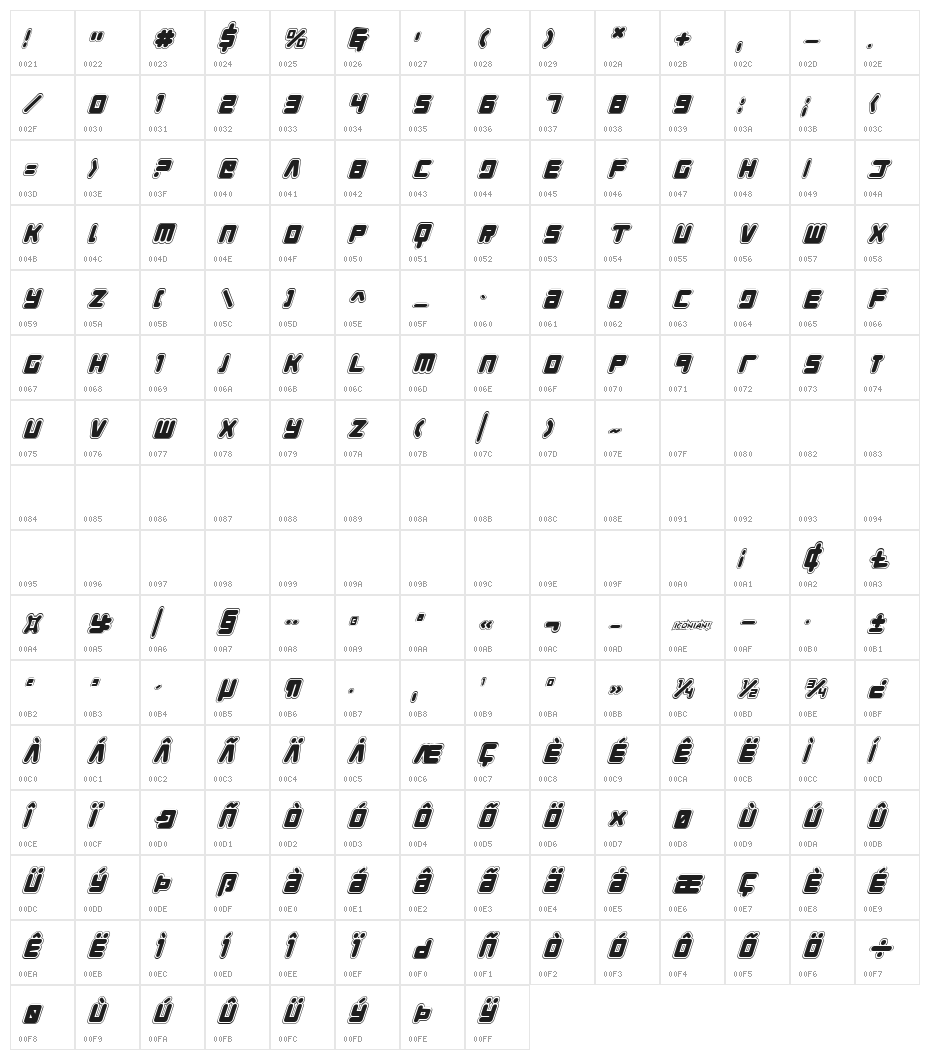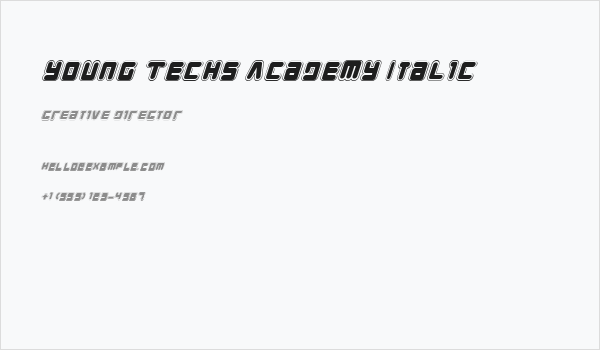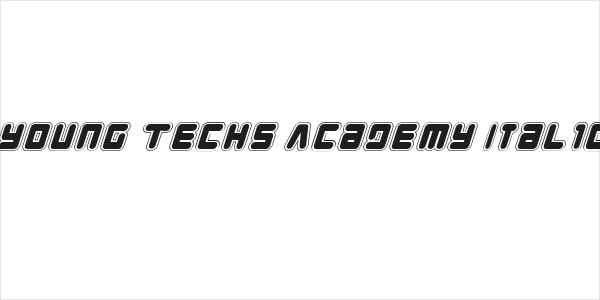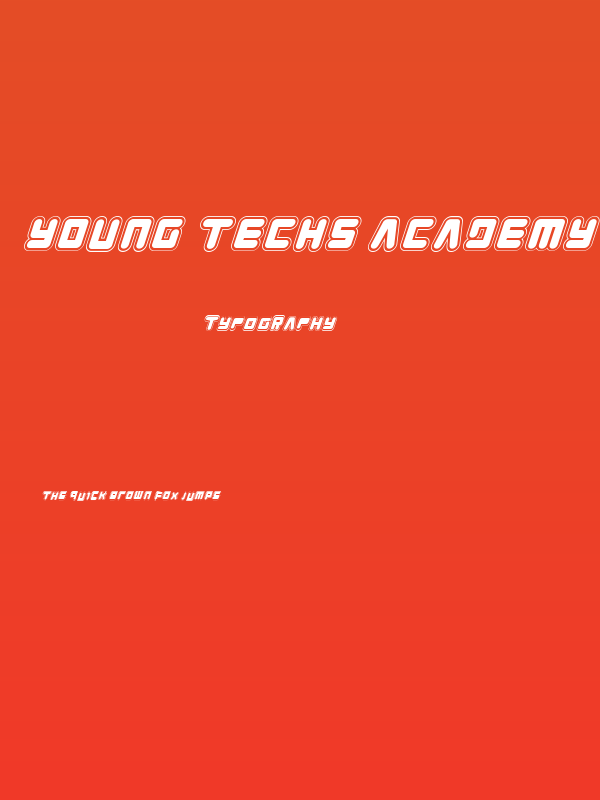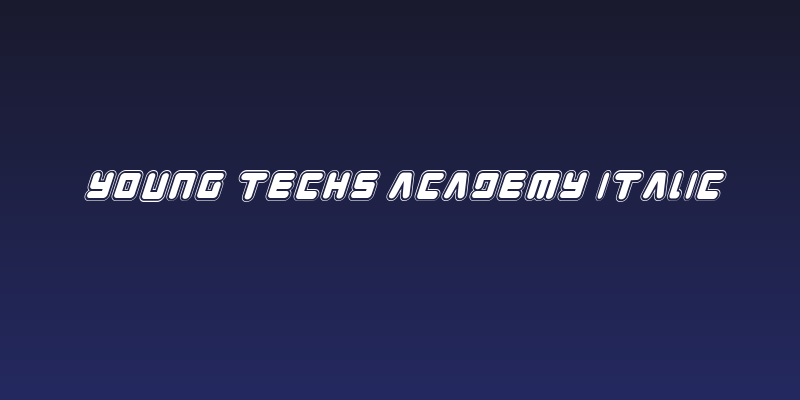
Young Techs Academy Italic Font
Young Techs Academy Italic Description
This font features a bold, modern design with a distinct italic slant, giving it a dynamic and futuristic appearance. The characters are outlined with a thick border, enhancing their visibility and impact. The font maintains a consistent width across all characters, creating a uniform and cohesive look. The rounded edges and smooth curves contribute to its sleek and contemporary style. The numbers and special characters are designed to match the boldness and style of the letters, ensuring a harmonious overall appearance. This font is ideal for projects that require a strong visual presence and a modern aesthetic.
| Proposed Projects | Ideal for technology branding, sports team logos, video game titles, and futuristic-themed designs. |